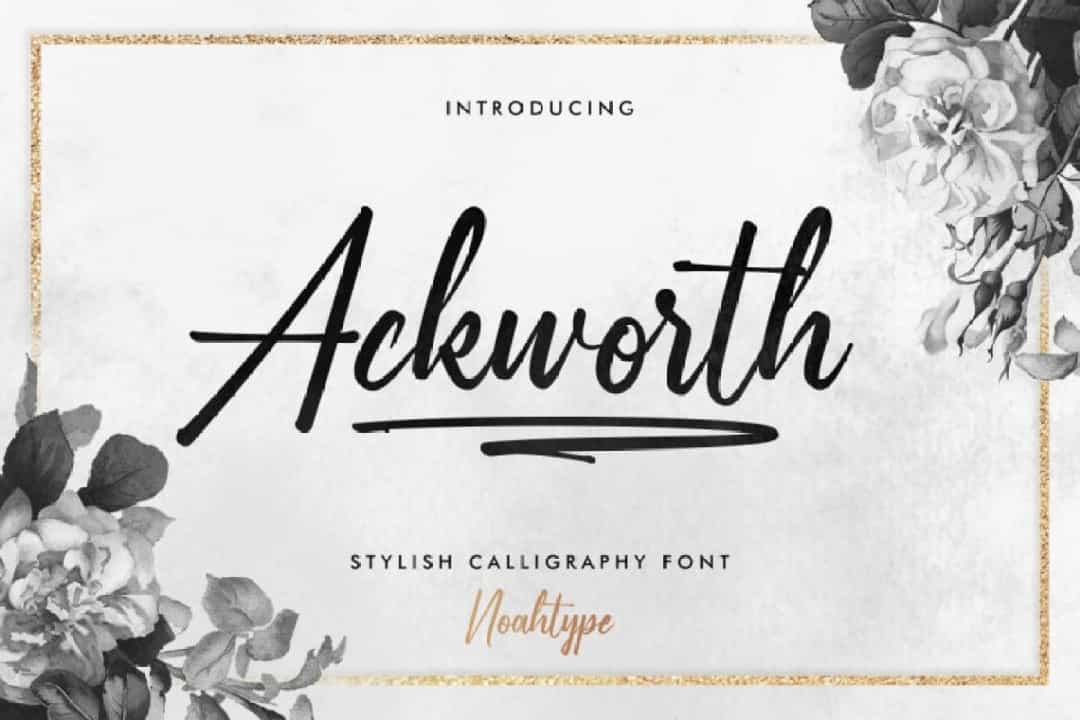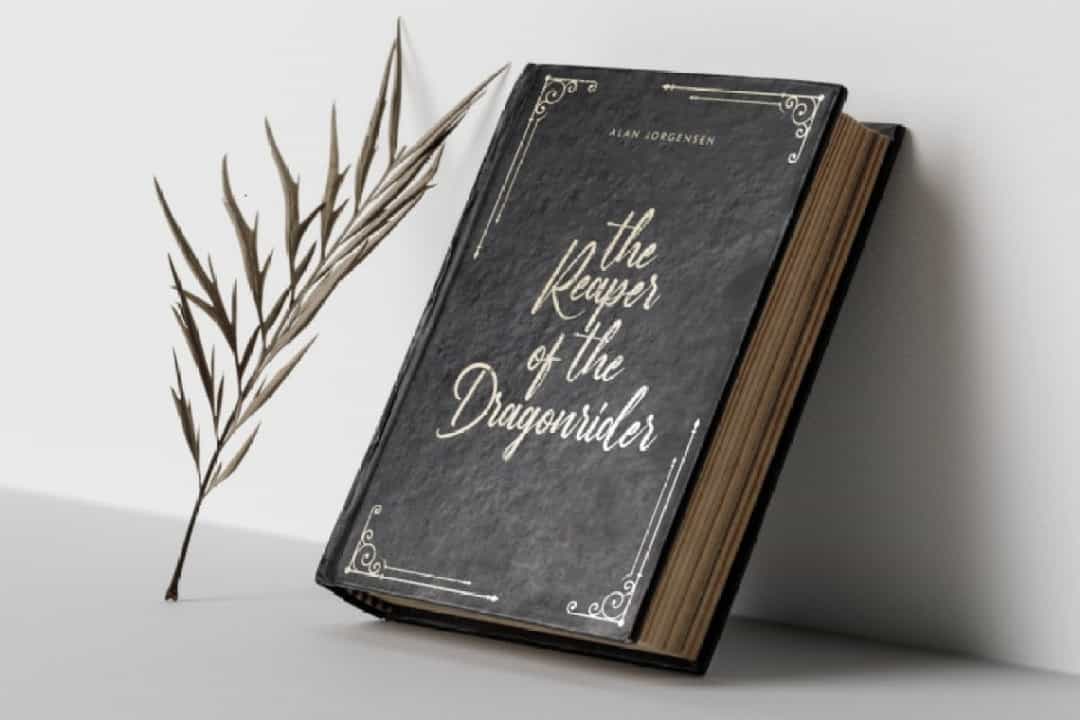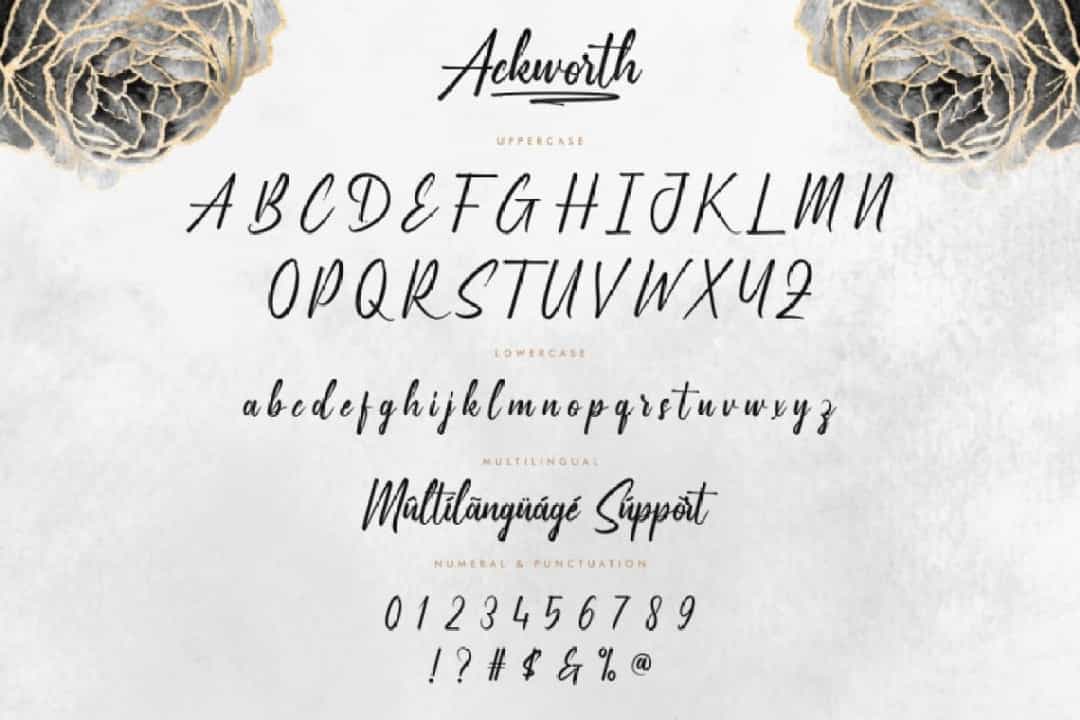
Ackworth is an elegant calligraphy script featuring sophisticated characters, elegant swashes and beautiful alternative fonts. Perfect for invitation calligraphy, luxurious branding projects, fashion promotion songs tittles or promotional song titles; each letter is carefully handwritten so as to achieve a seamless result in every character of Ackworth font.